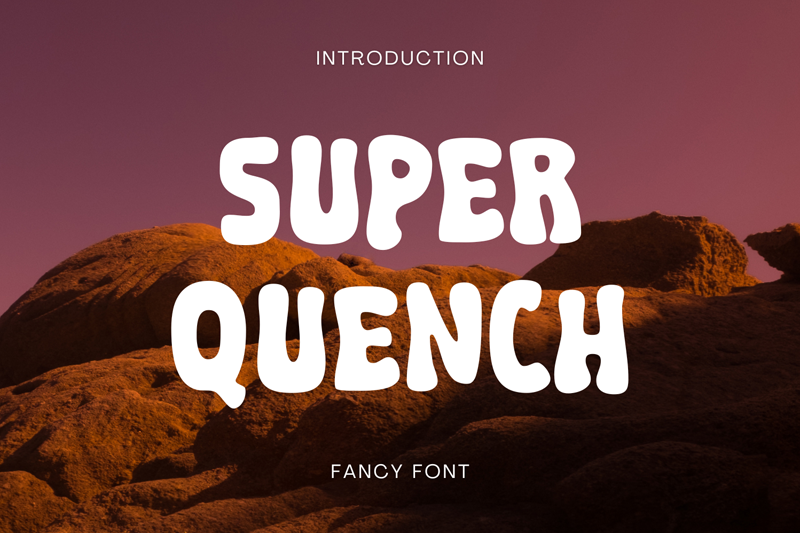
Preview and download Super Quench Font. Created by fsuarez913 in Fancy Cartoon styles with Free for personal use license.
This font is for PERSONAL USE ONLY!. If you want to use this font for commercial purposes, you will need to purchase a commercial license. You can purchase a commercial license at https://allsuperfont.com/product/super-quench/ Super Quench: A Font Full of Fun and Fizz! Super Quench is a font that explodes with personality, playfully combining the bubbly charm of a classic bubble font with the bold impact of a strong, eye-catching design. It's perfect for adding a touch of whimsy and energy to your projects, whether it's a playful logo, a vibrant website header, or a quirky social media post |